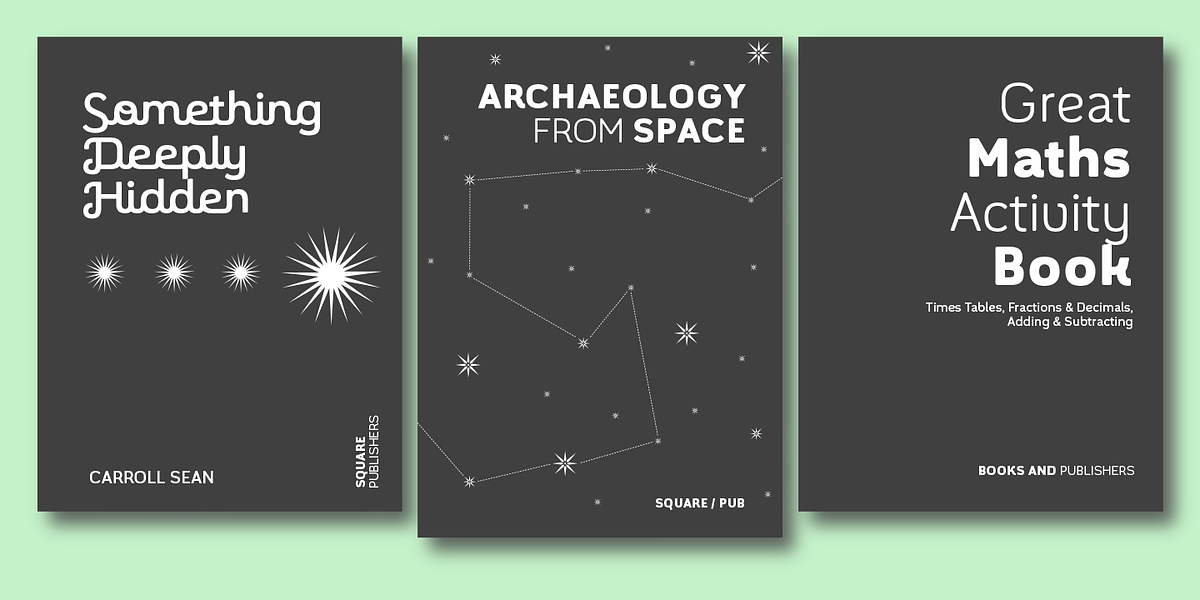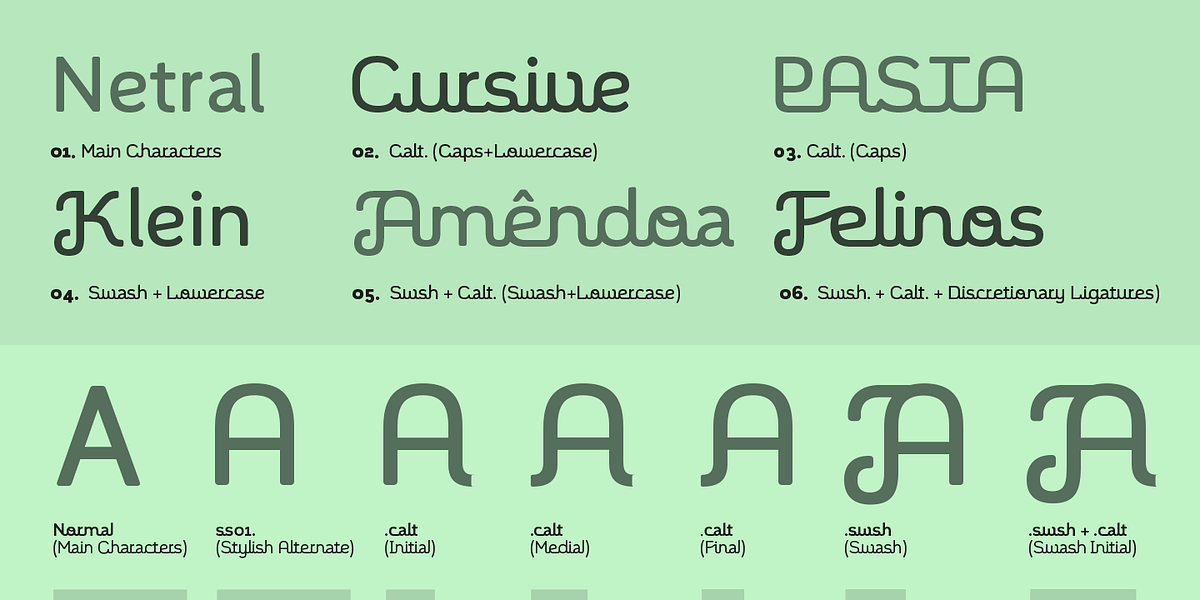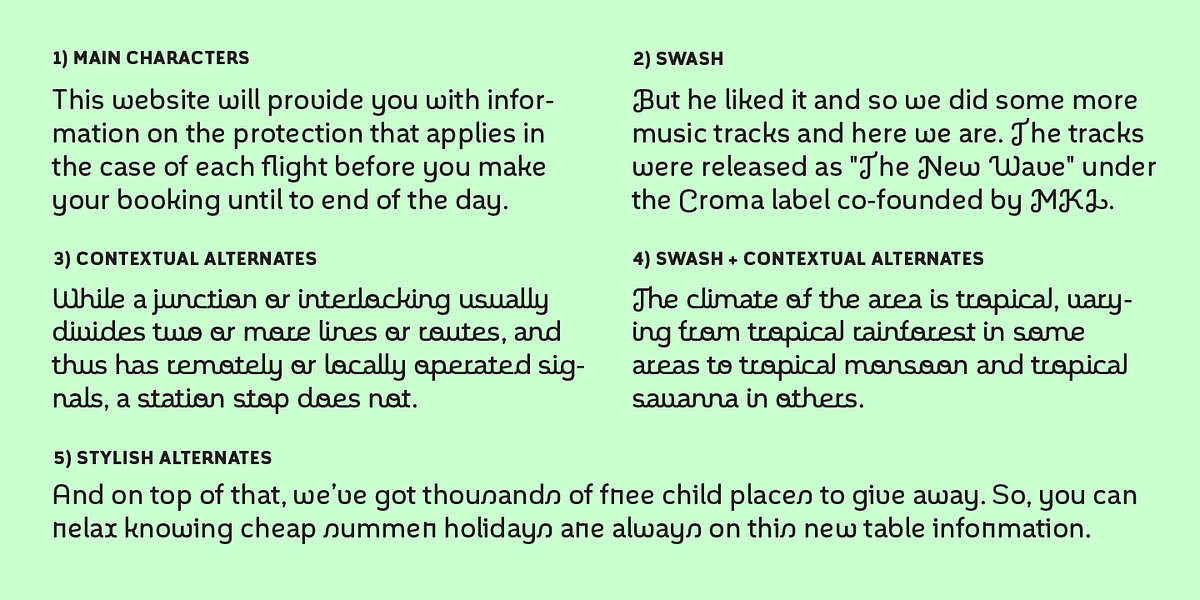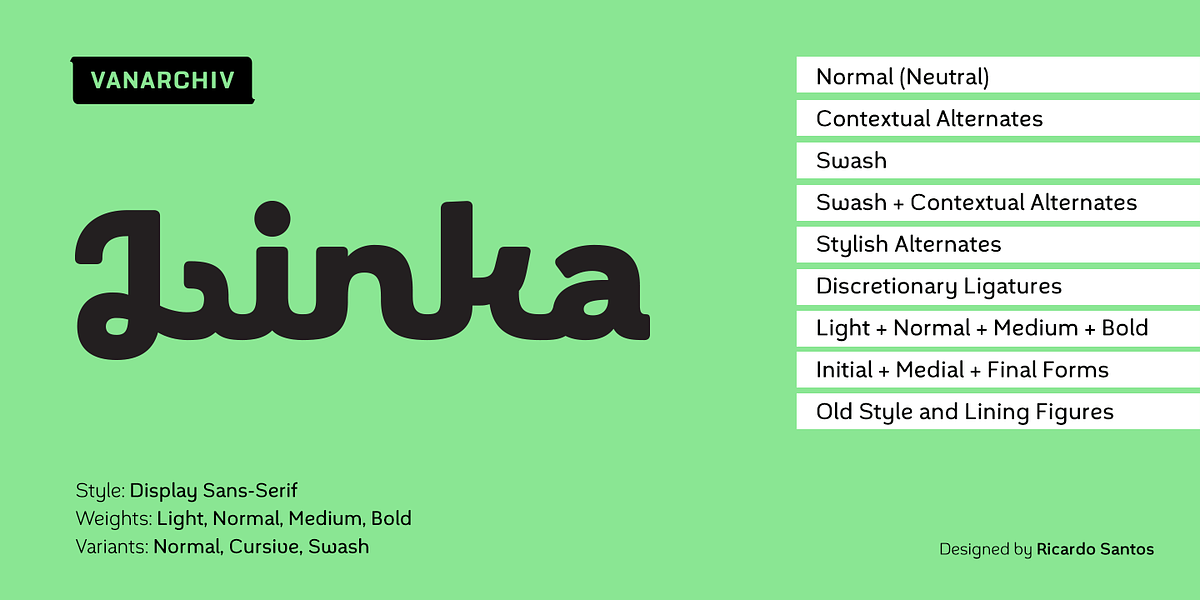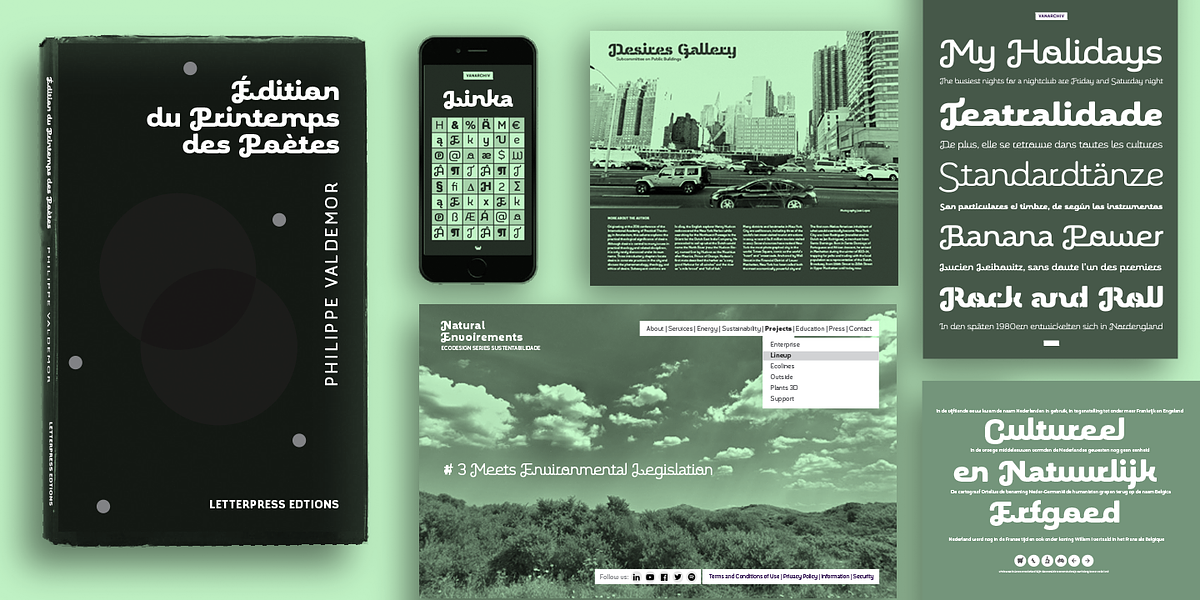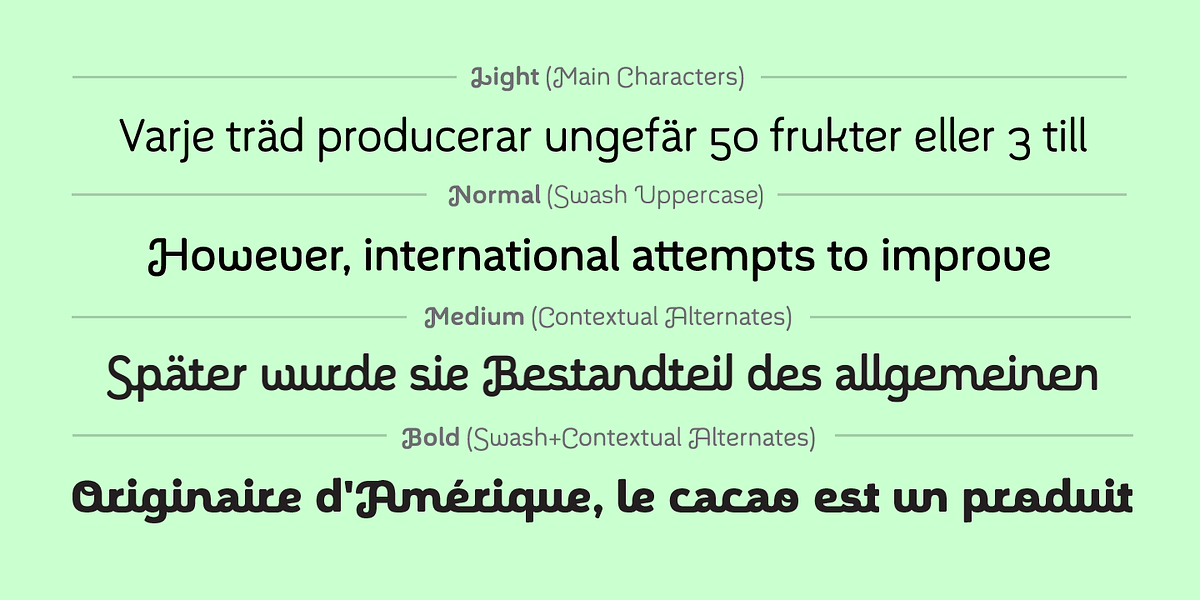
Linka
This geometric sans-serif font offers a neutral base design but features contextual alternates that transform letterforms into a cursive style. This feature is compatible with Adobe Creative Suite applications like InDesign and Illustrator. The font also includes uppercase swashes, stylish alternatives, and discretionary ligatures to enhance legibility and readability in specific character combinations. Diacritics are available for Latin-based languages covering Western, Central Europe, and Baltic regions.